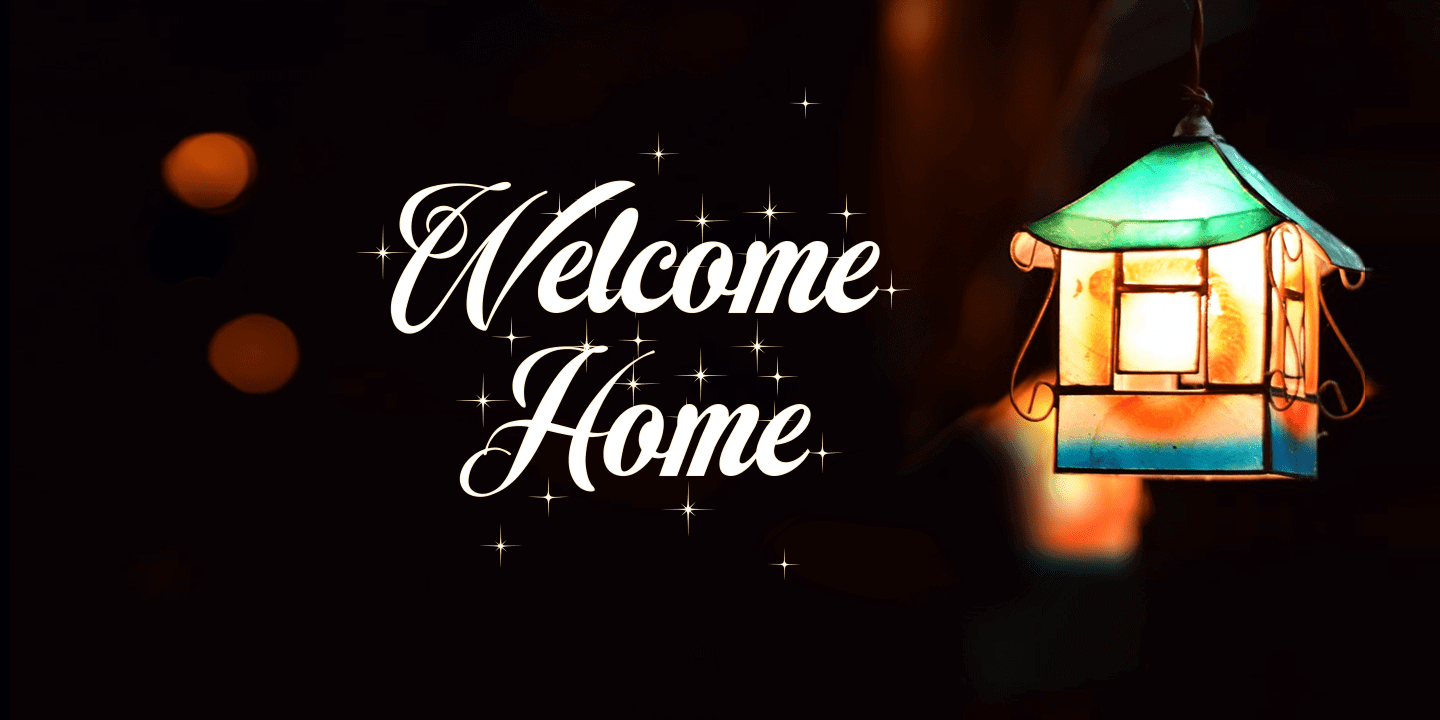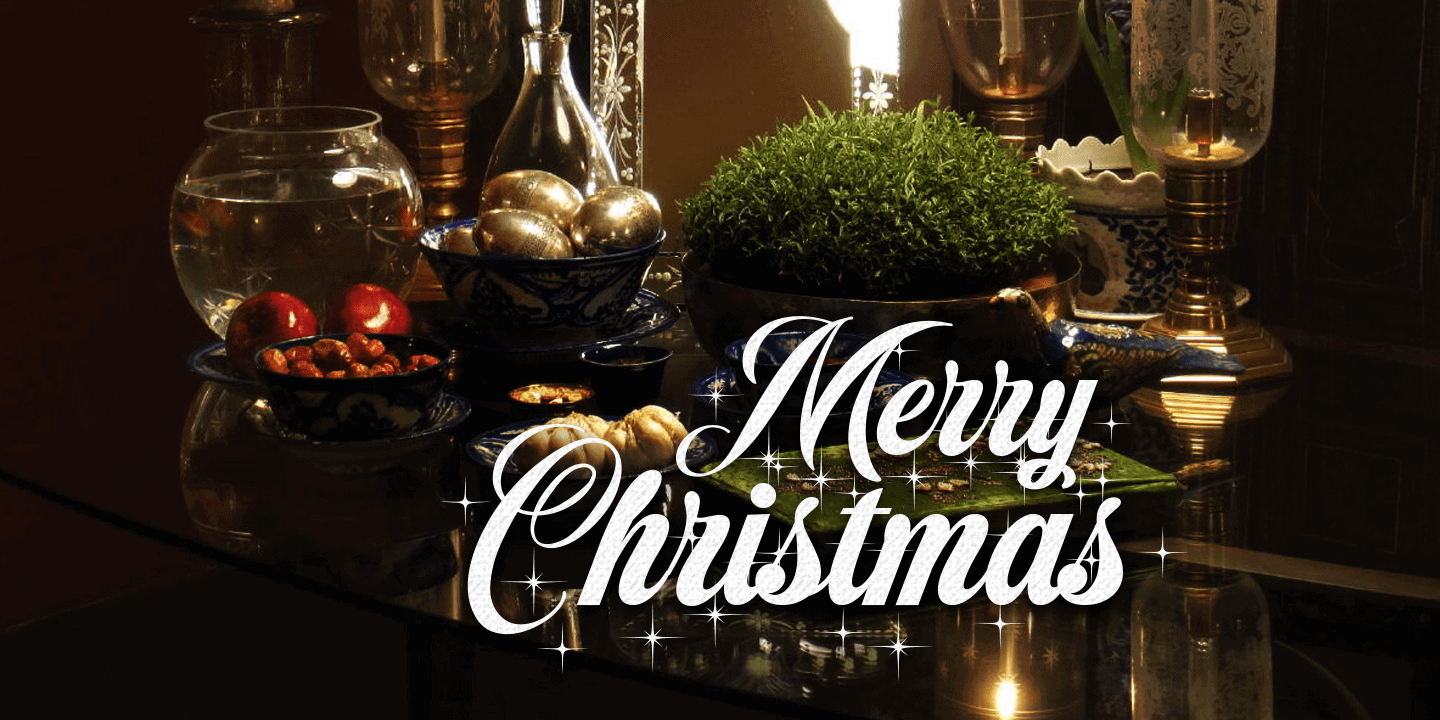
Christmas sparkle
Christmas Sparkle is a decorative Christmas font.
This original typeface, drawn and created by Måns Grebäck, brings a spark to any Christmas themed project.
It contains stylistic and contextual alternates, and supports all European Latin-based languages.
Use * and + for stars!